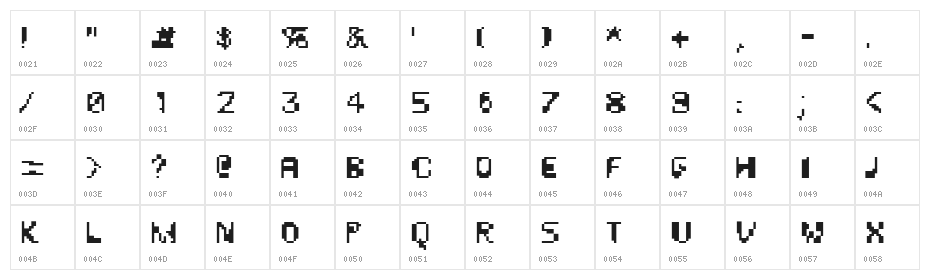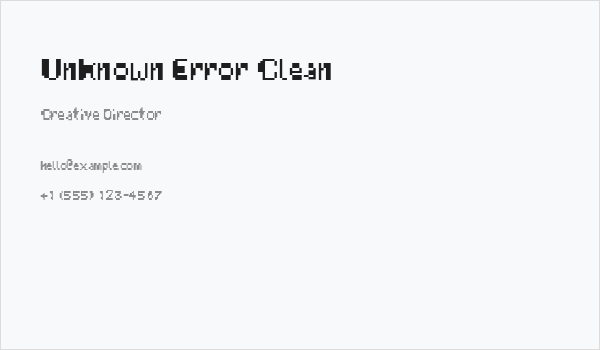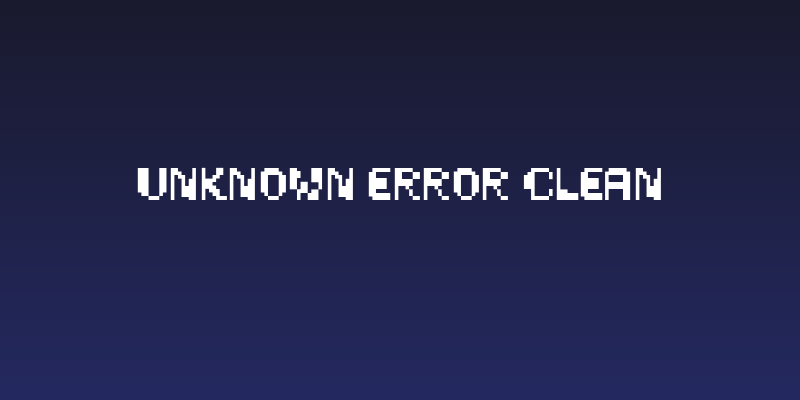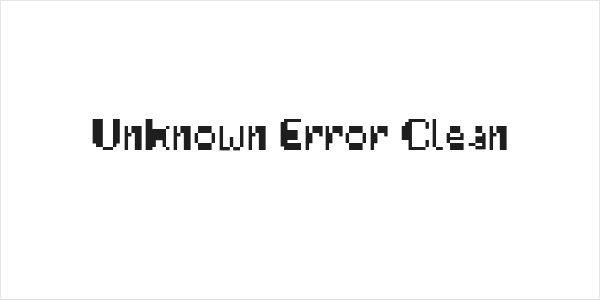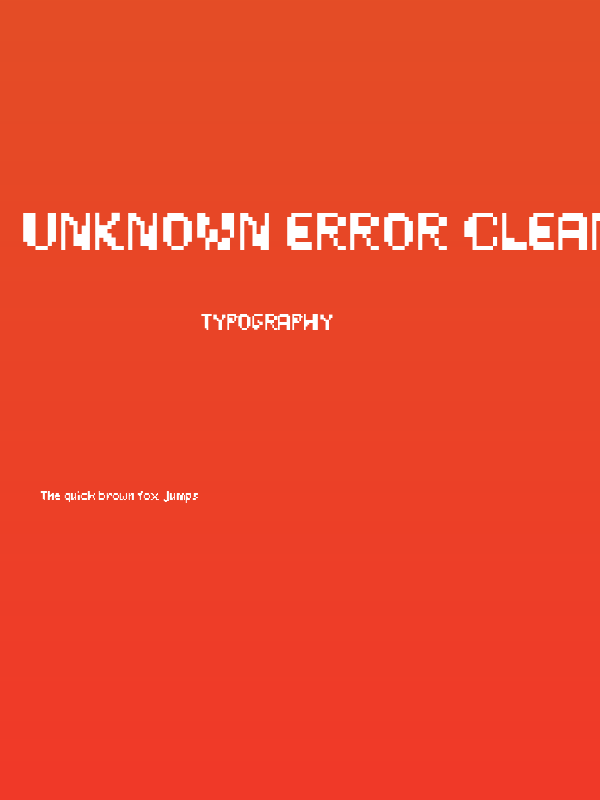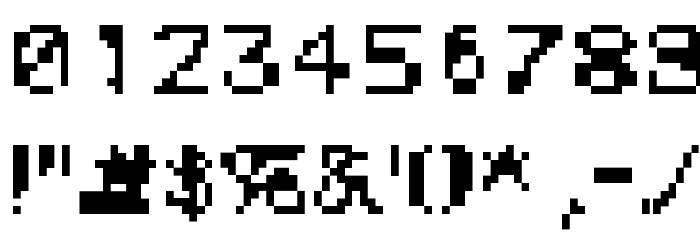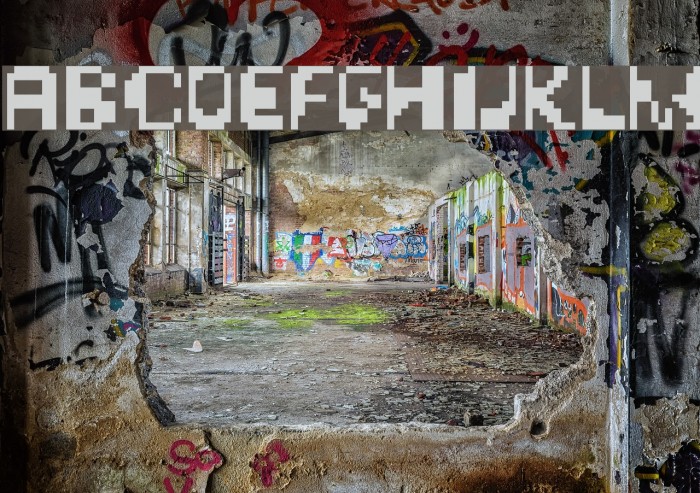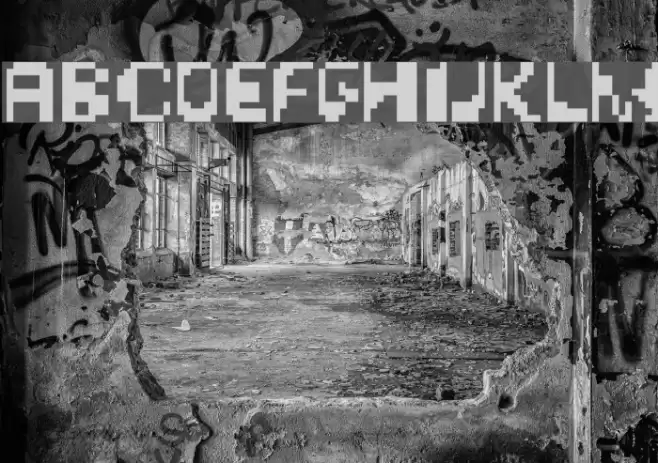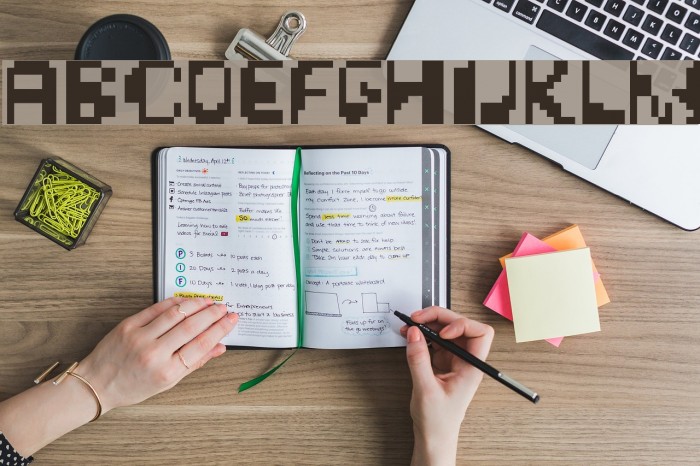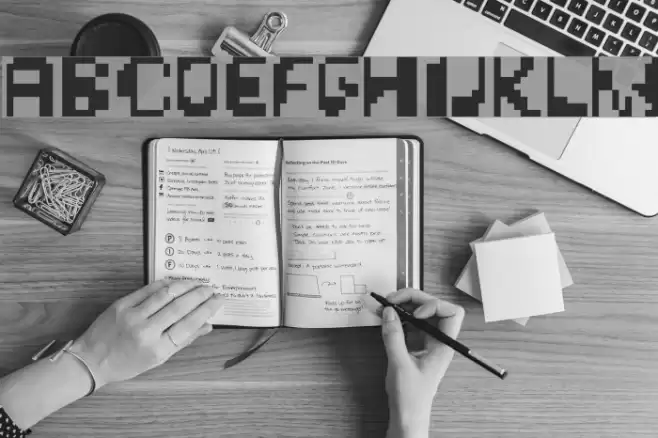
Unknown Error Clean Font
Unknown Error Clean Description
This font features a pixelated, blocky style reminiscent of early digital and arcade aesthetics. The characters are uniformly structured with sharp, angular edges, creating a distinctly retro and technological feel. The uppercase and lowercase letters maintain a consistent height, contributing to a monospaced appearance, although the font is not strictly monospaced. The numerals and special characters follow the same design principles, ensuring uniformity across all glyphs. This font's unique style makes it ideal for projects that aim to evoke nostalgia or a digital theme.
| Overall Style | Retro, Digital |
| Proposed Projects | Ideal for video game design, digital art projects, retro-themed posters, and tech-related branding. |